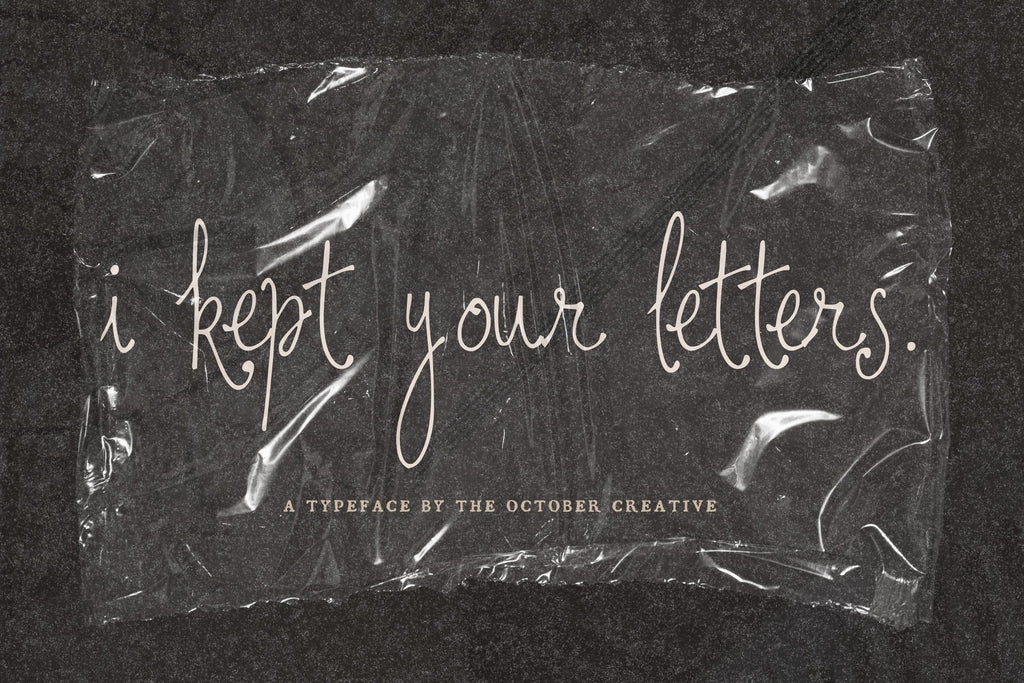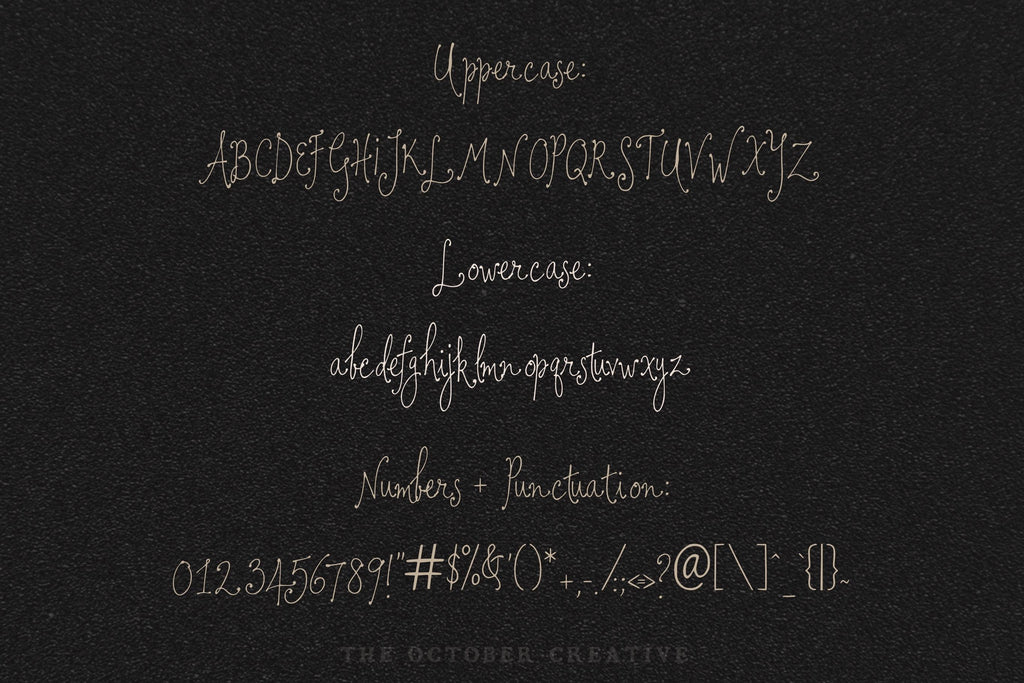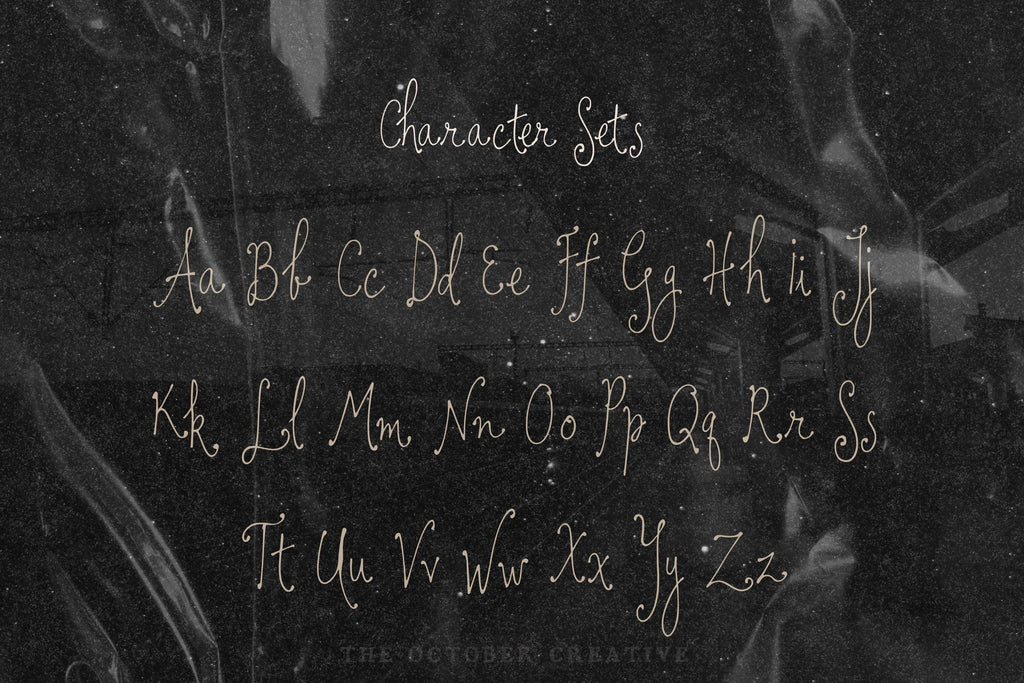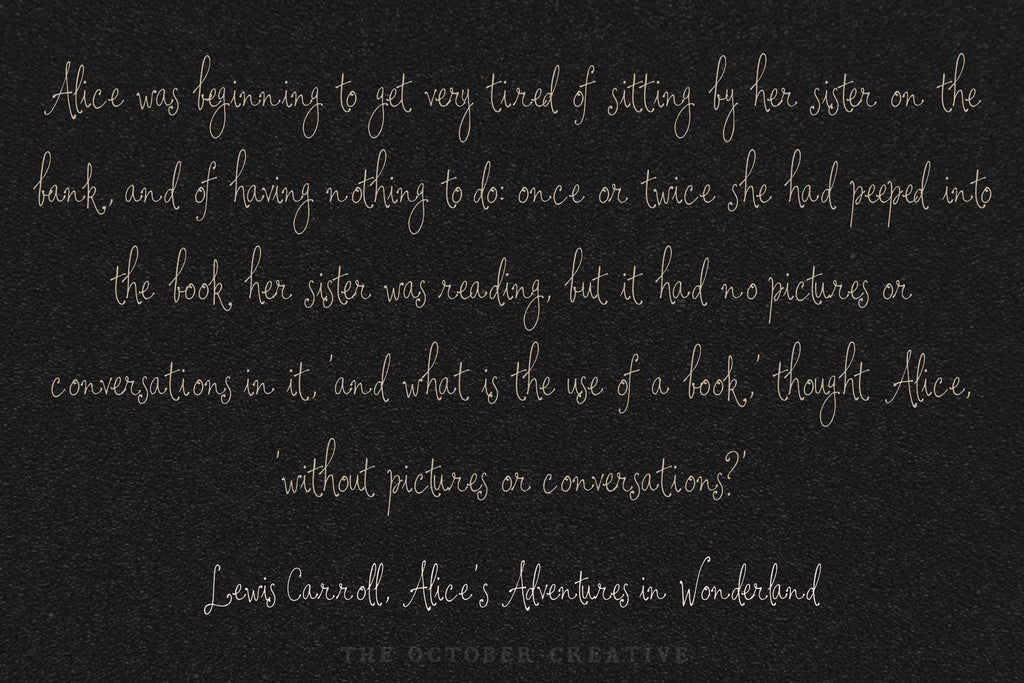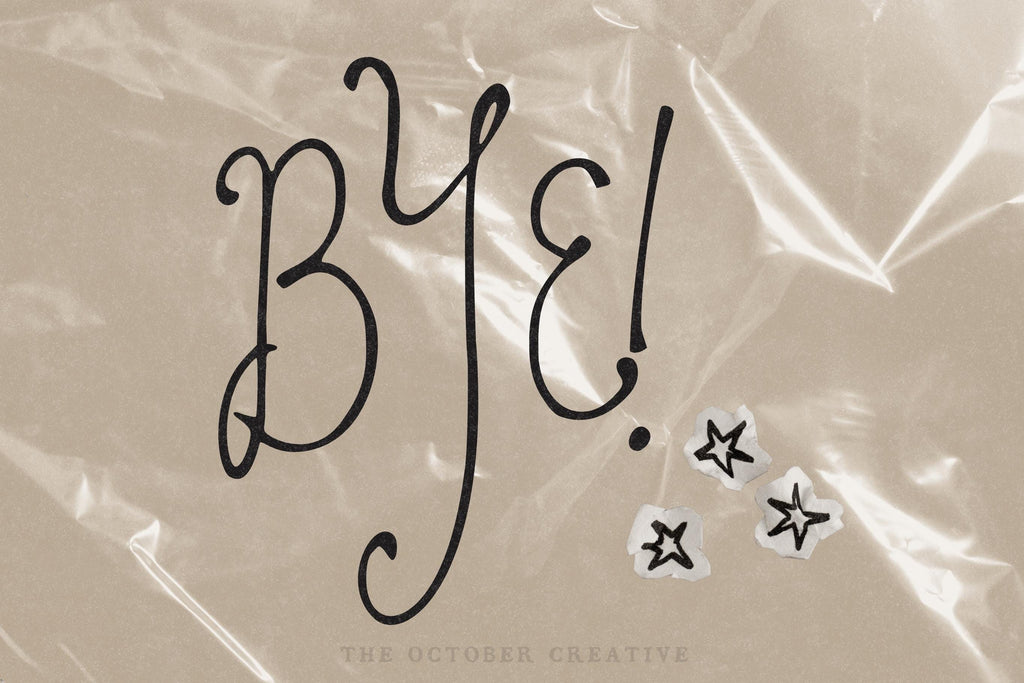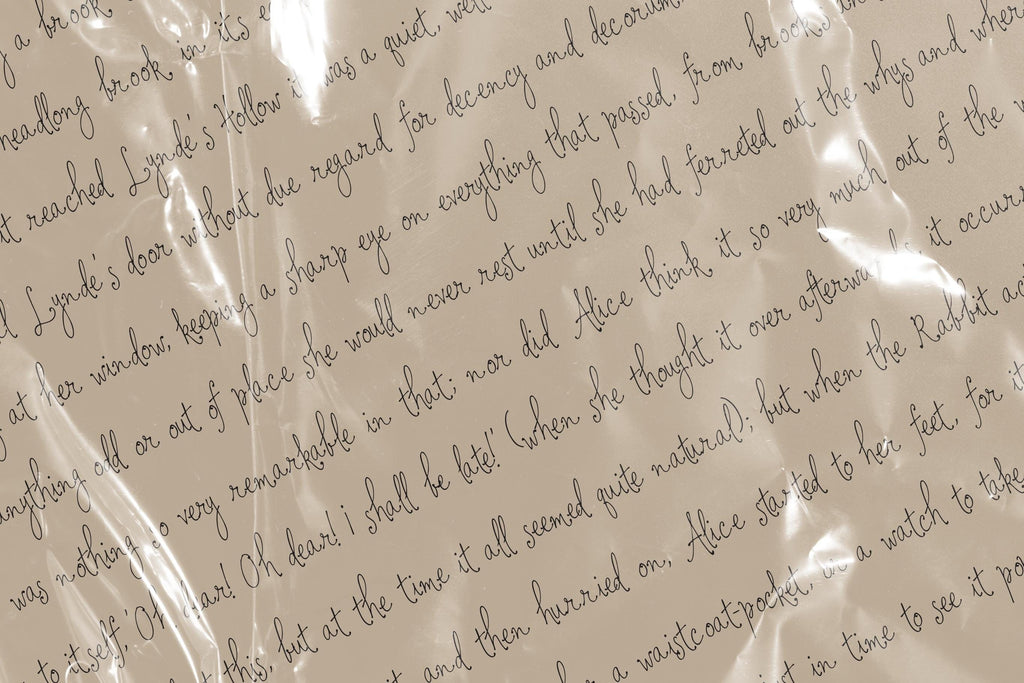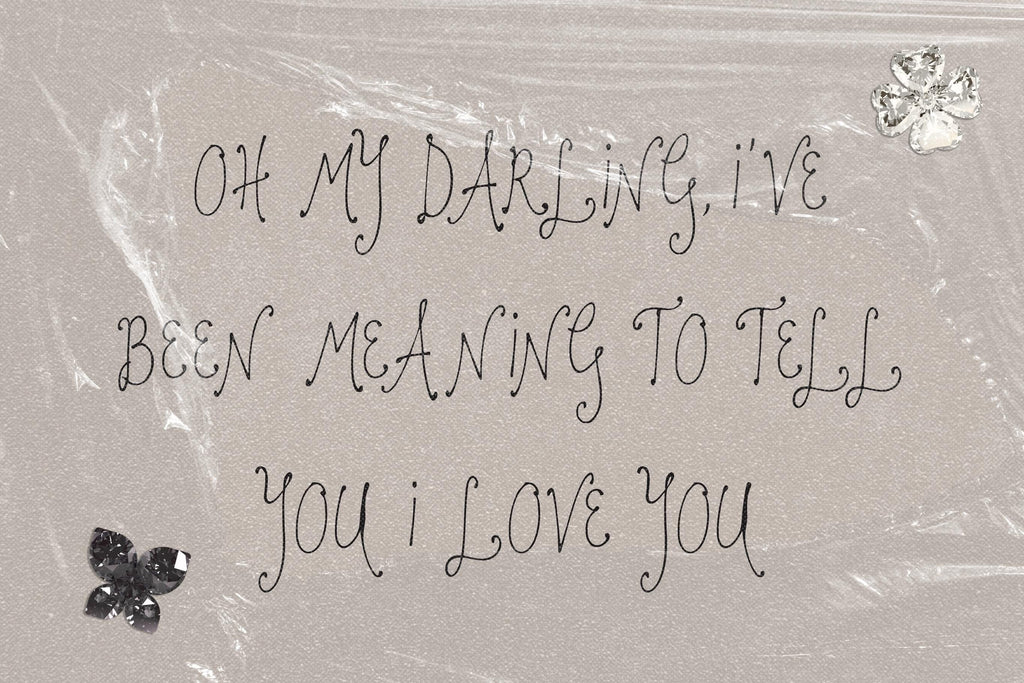
I Kept Your Letters Font
I Kept Your Letters is a delicate handwriting font with thin strokes, long loops, and a light slant. It's made for love letters, wedding vows, save the dates, and handwritten-style notes and quotes.
- One style: I Kept Your Letters Regular